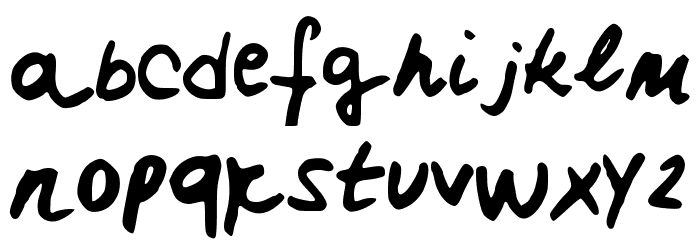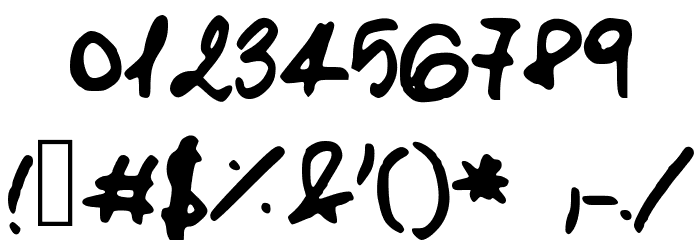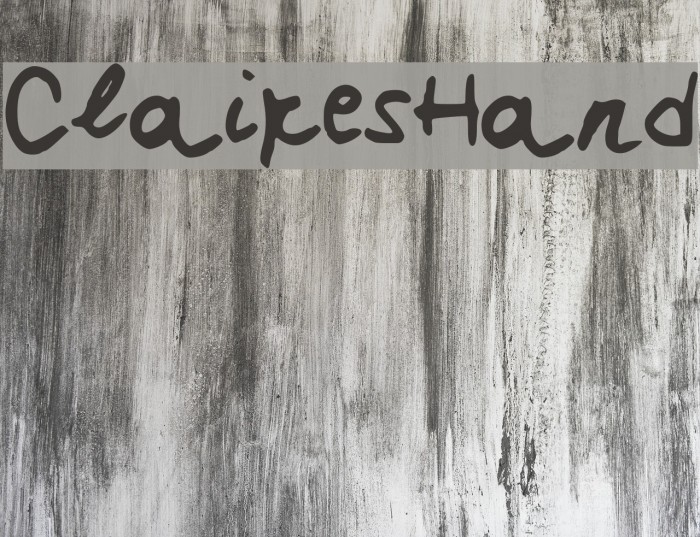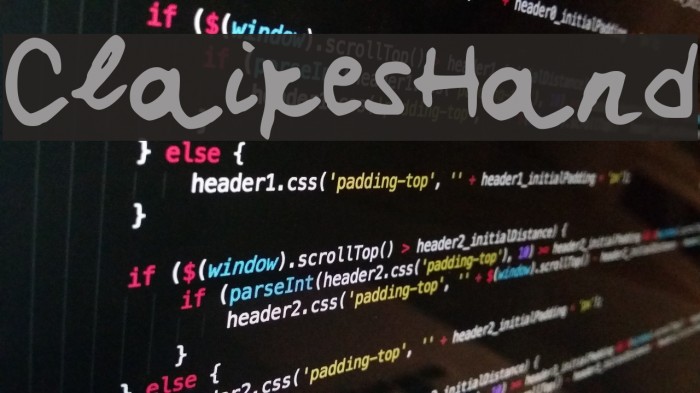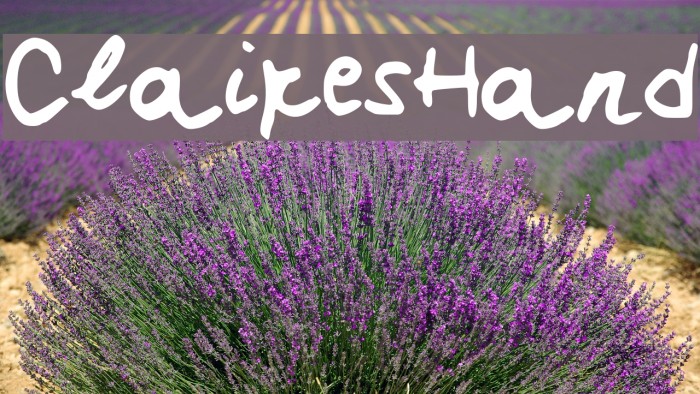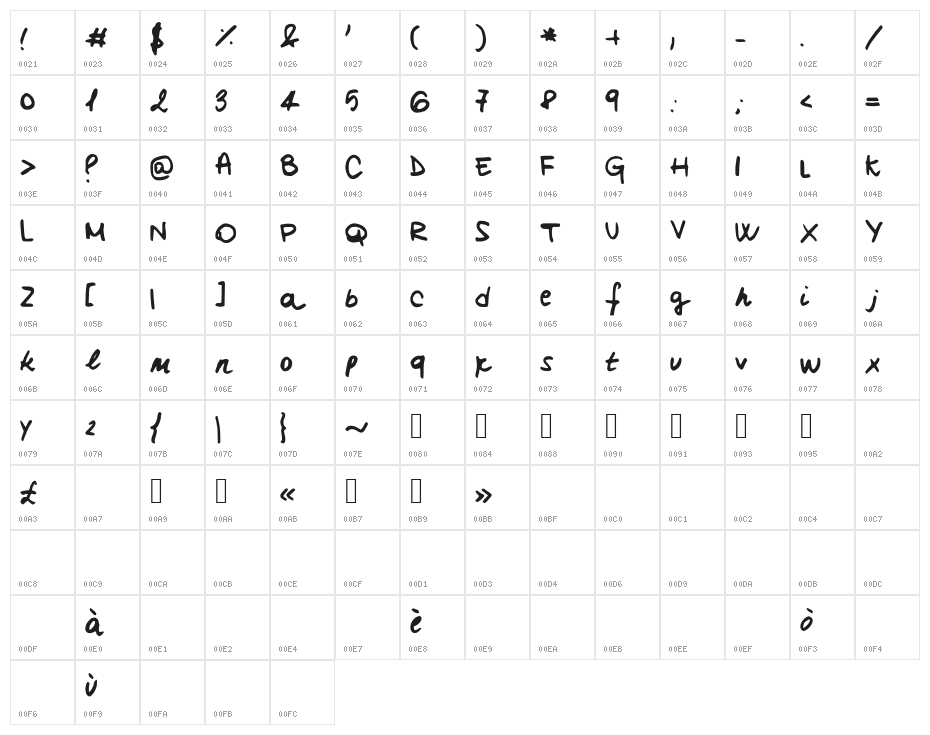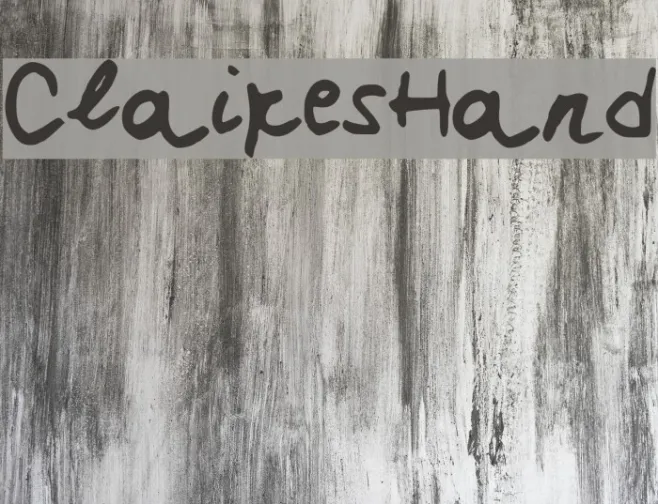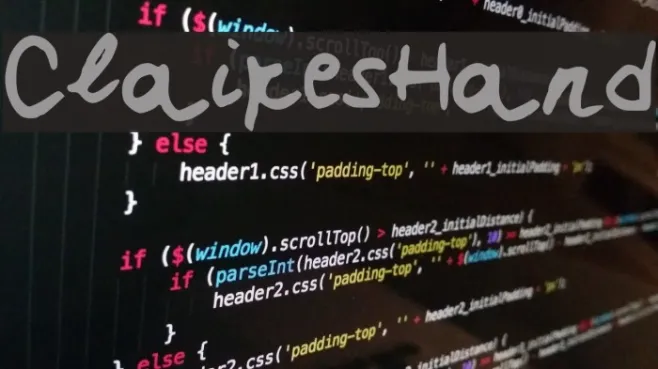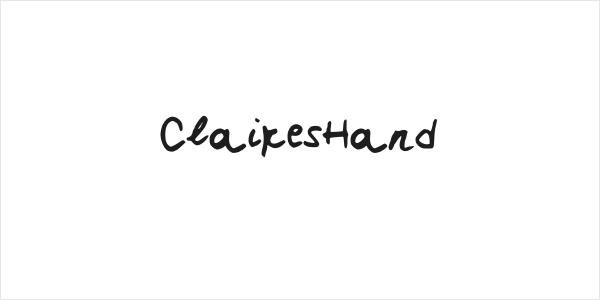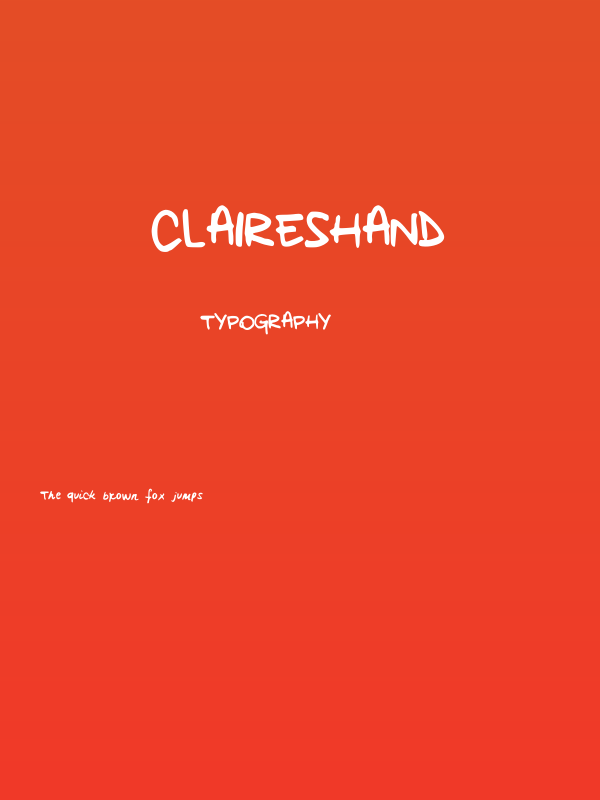
ClairesHand Font
This font exudes a playful and casual handwritten style, characterized by its bold and expressive strokes. The letters are slightly irregular, giving it an authentic, personal touch reminiscent of a quick, confident scribble. The uppercase letters are robust and prominent, while the lowercase letters maintain a consistent flow, enhancing readability. Numbers and special characters follow the same lively style, making them easily distinguishable. This font's energetic and informal appearance makes it suitable for projects that require a personal or creative flair.
A bold, playful handwritten font with expressive strokes.
- Proposed Projects: Ideal for greeting cards, personal branding, creative posters, and informal invitations.
- Category: Handwritten
- Overall Style: Casual, Playful
- Use Case: Logos, Headlines, Creative projects